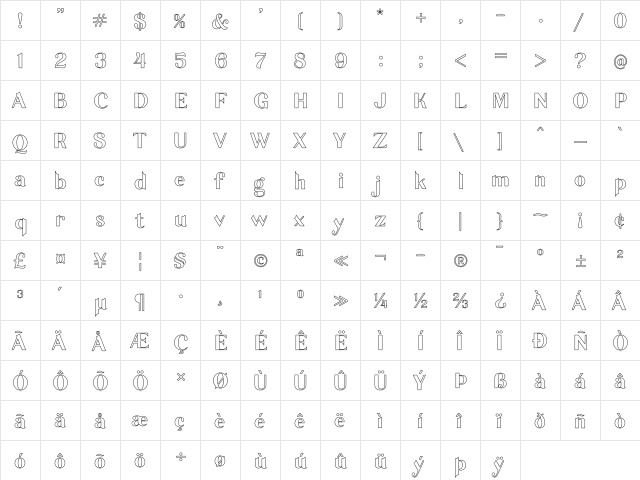
Garlic Outline Regular
Design Context for Garlic Outline Typeface
Garlic Outline brings ornamental detail and strong personality to headlines and identities, where visual impact matters more than quiet functionality.
Font Pairing: Pair with a clean neutral sans-serif for body copy to let Garlic Outline's character lead without overwhelming the composition.
Pro Tip: Use Garlic Outline exclusively at display sizes — it was designed to be seen, not read at length. Let a neutral companion handle body copy.